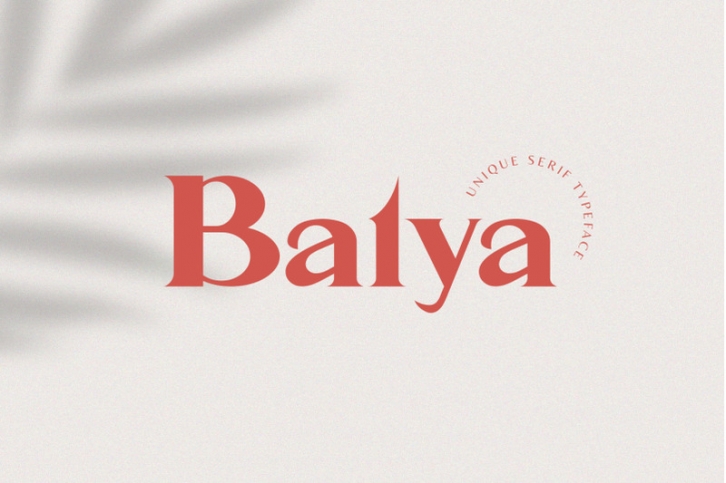
**Balya serif font** this is a serif type font, this font is suitable for use with premium, elegant, luxury needs. such as hotels, salons, restaurants, cafes and others.
make everything beautiful and charming with Balya Font